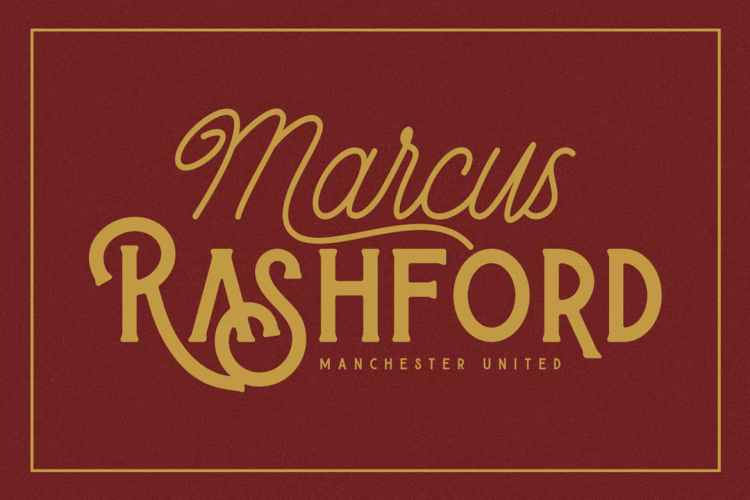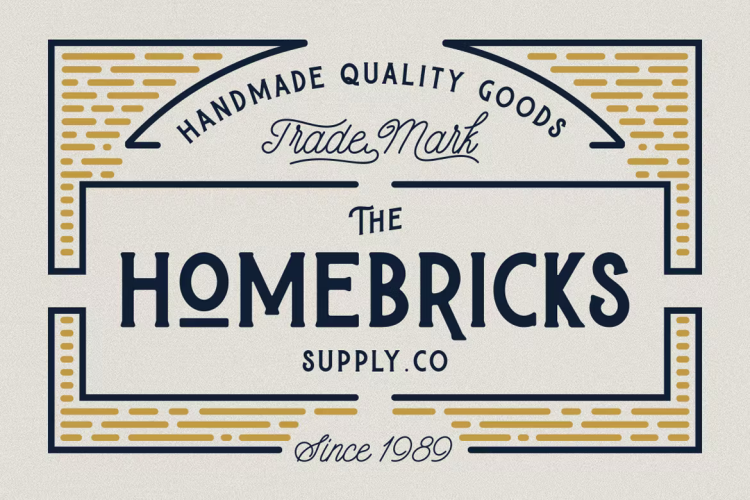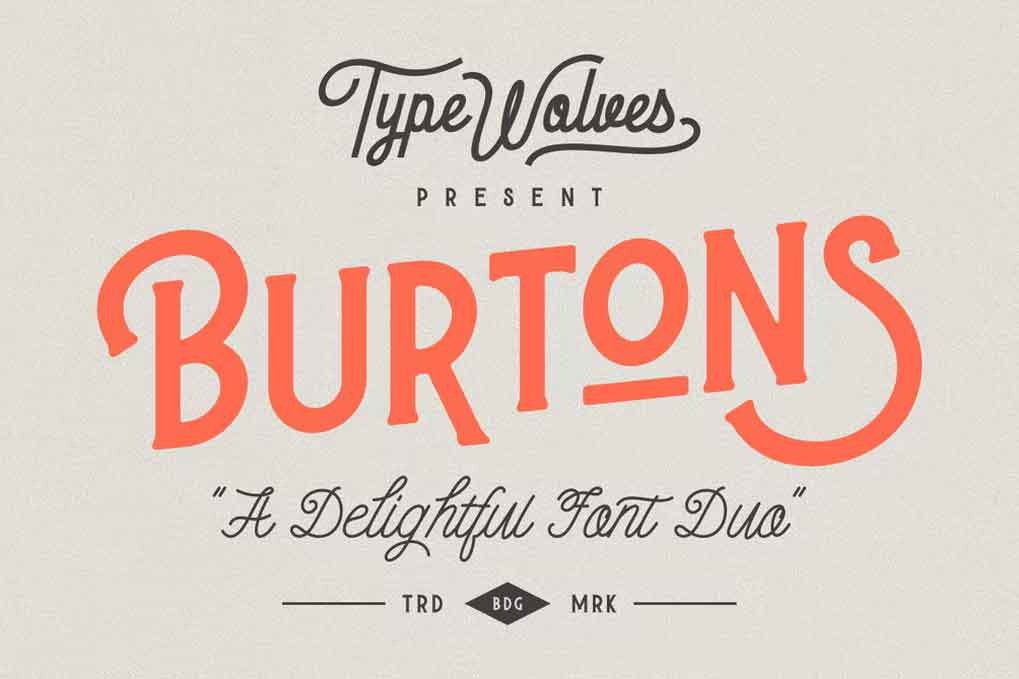
Burtons Font
Burtons is a new display font with cool characters. it’s a delightful font duo, serif and script perfect for headlines, logotypes, signs, posters, greeting card, letterh…
Burtons is a new display font with cool characters. it’s a delightful font duo, serif and script perfect for headlines, logotypes, signs, posters, greeting card, letterhead, t-shirt, and many more.
Where Burtons Font works best
Reports, white papers and book interiors hold the eye longer when the text face has real serifs; Burtons Font keeps that rhythm without looking old-fashioned.
Food, spirits and cosmetics brands lean on serif wordmarks to suggest age and care. Burtons Font gives that signal at wordmark size.
Set Burtons Font for the body of an award or a diploma and keep the recipient name in a script; the pairing is what makes a document feel official.
What kind of work does Burtons Font suit?
It sits in the Serif Fonts group and reads as display, script, serif, serif fonts. That makes it a candidate wherever those qualities help: headings, packaging, social graphics and brand work. Set it at the size you plan to use before deciding.